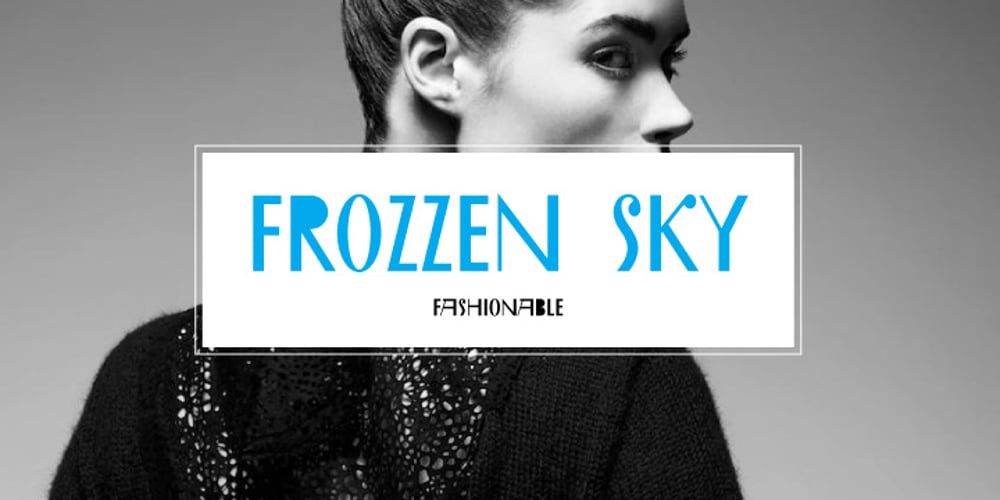
Wary
Wary font
Wary Font Family was designed by Valery Zaveryaev and published by Gaslight. Wary contains 1 styles and family package options. Wary is a geometric, contrast sans-serif with an avantgarde touch. Wary was inspired from lettering used in a Russian book from the seventies. Use Wary font in advertising and display typography. Wary received a citation for excellence in type design the in international competition “Modern cyrillic 2014”.